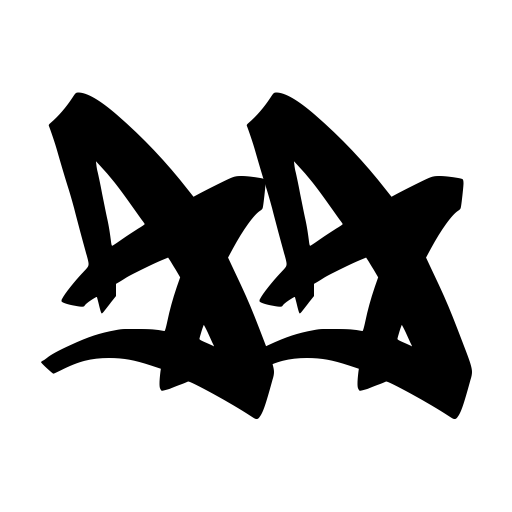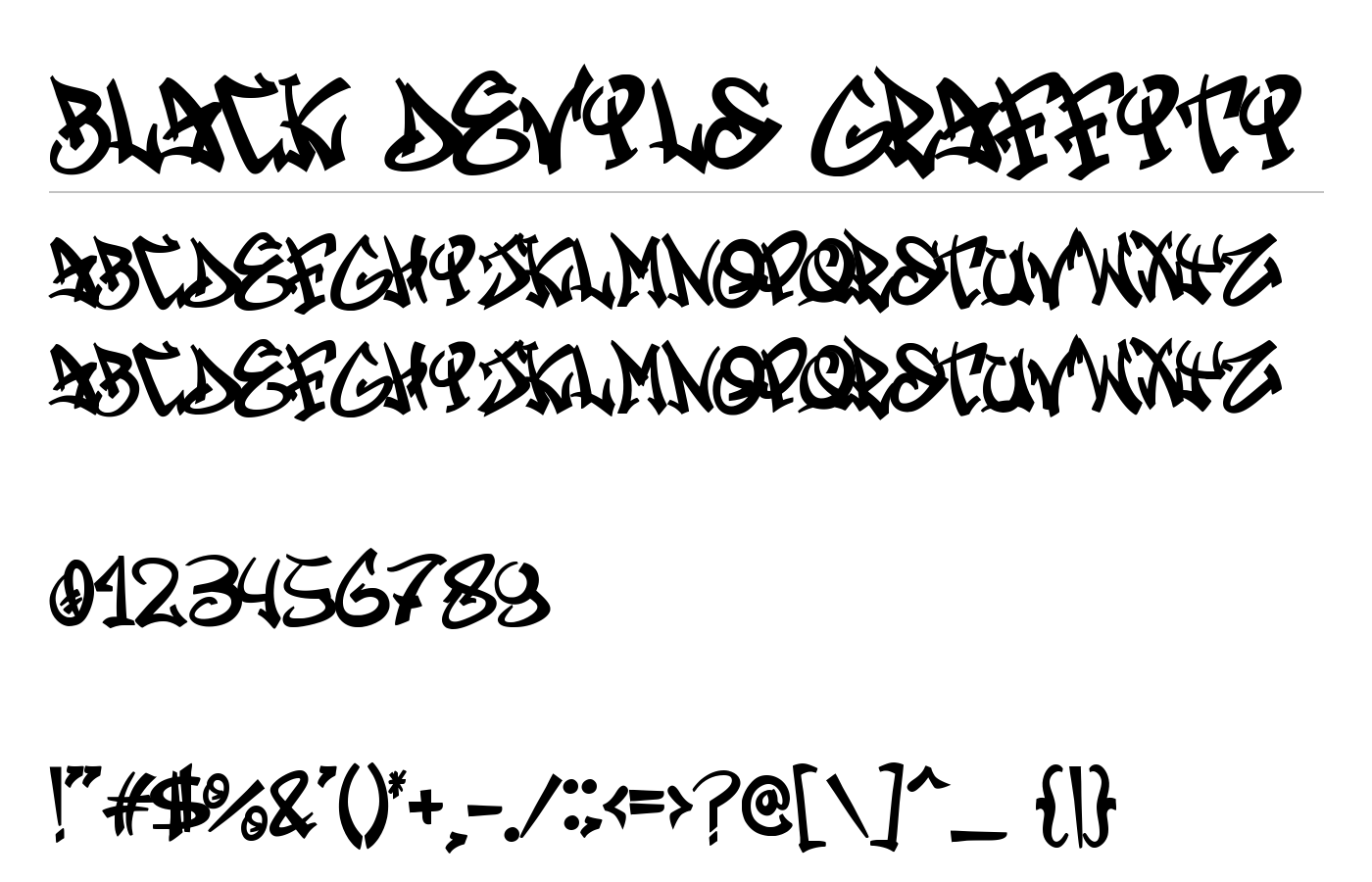
Black Devils Graffiti is a bold, expressive script font with urban street art style, characterized by its sharp, dynamic strokes and irregular, hand-drawn letterforms. This font’s playful yet edgy vibe makes it perfect for creative projects seeking a raw, energetic look, such as posters, logos, and streetwear branding. Its distinctive graffiti-inspired aesthetic stands out best in larger display uses rather than body text.
Black Devils Graffiti Font
About Black Devils Graffiti Font
| Font family | Black Devils Graffiti Font |
| Designer | Muhammad Panji Ramdhani, Mohammad Farhan R, Ferbiya Rachmat |